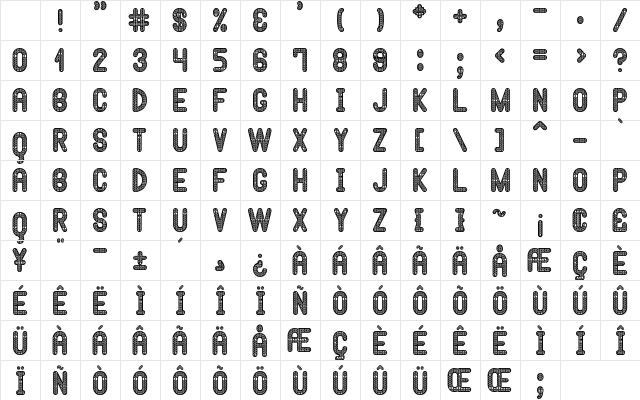
Complete Hypnossia St Regular glyph index. Displaying only characters natively supported by Hypnossia St Regular font.
Hypnossia St is a composed and adaptable typeface that performs quietly and consistently across a wide range of design contexts.